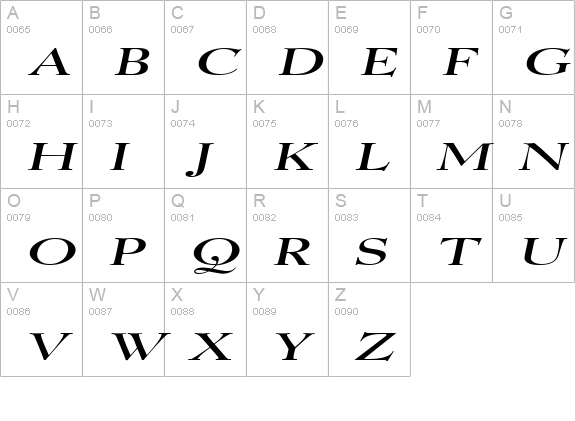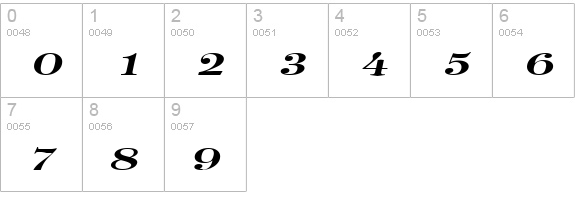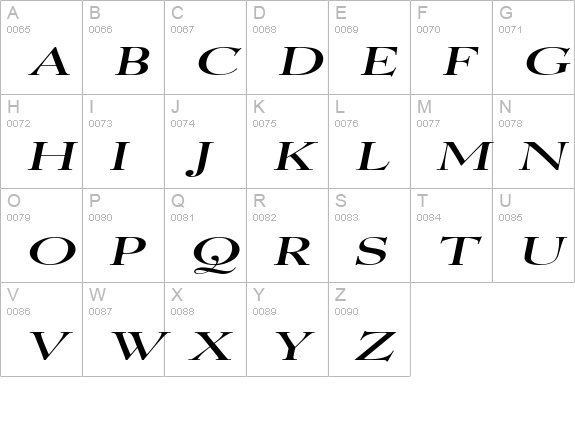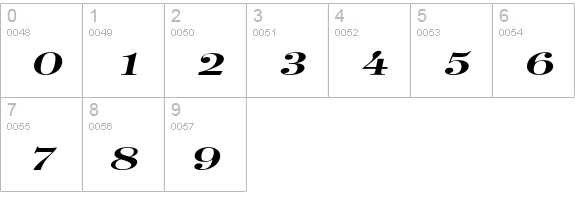
Luciano Extended Italic is a distinctive, extended-width, italic variant in the Luciano typeface family \xE2\x80\x94 well suited to design and typography projects.
The Luciano Extended Italic font exudes elegance and sophistication with its sleek and stylish design. Its extended italic style adds a touch of modernity and flair to any project, making it perfect for fashion magazines, luxury branding, and upscale invitations. The flowing curves and unique letterforms of Luciano Extended Italic make it stand out from the crowd, adding a touch of class to your designs. Best of all, this exquisite font is available for free download at FontsMarket.com, allowing you to elevate your projects without breaking the bank. Whether you're a seasoned designer looking to add a fresh look to your work or a beginner exploring new typographic possibilities, Luciano Extended Italic is sure to impress with its timeless appeal and versatile use. Download it today and bring a touch of luxury to your next design project.